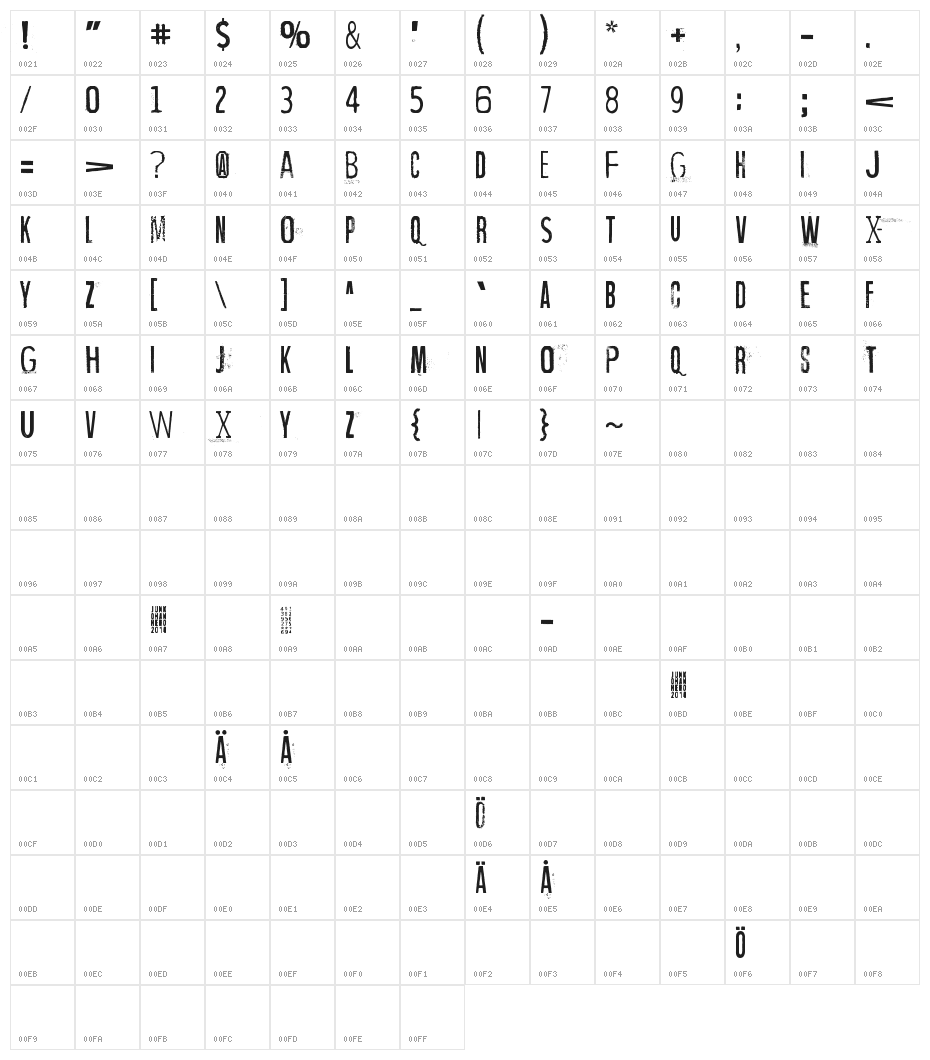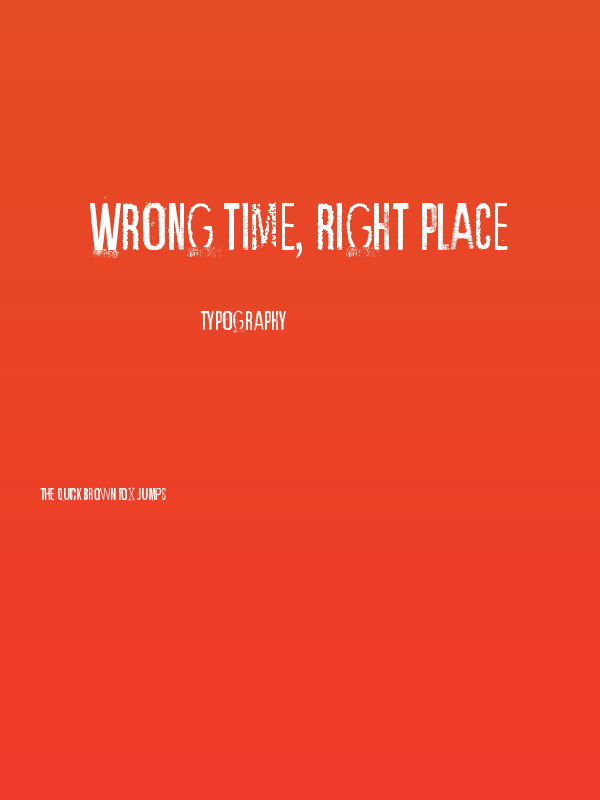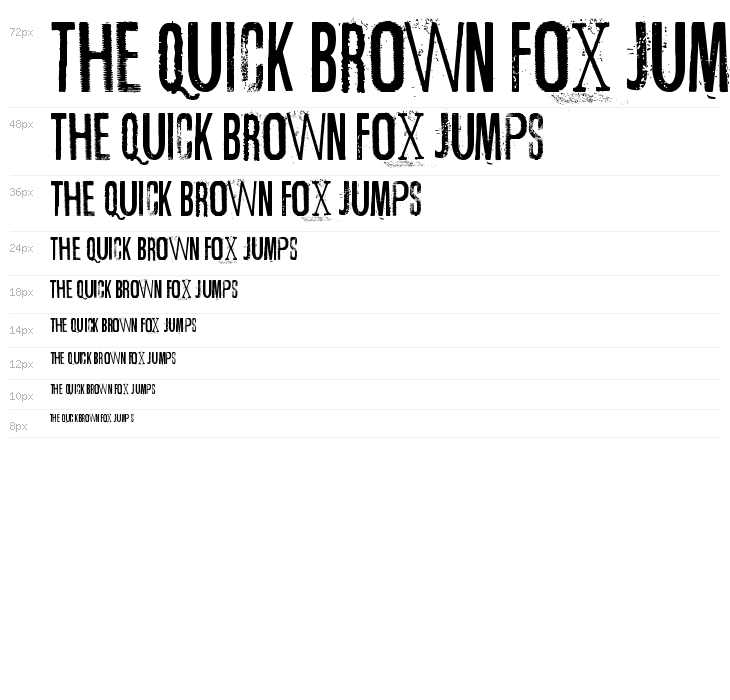
Wrong time, right place Font
Wrong time, right place Description
This font features a distressed, grunge style with a worn and weathered appearance. The characters exhibit a rough texture, giving the impression of being stamped or printed with imperfect ink coverage. The uppercase letters are bold and impactful, while the numbers and special characters maintain the same rugged aesthetic. The font's unique character is enhanced by its irregular edges and varying stroke thickness, which contribute to its dynamic and edgy look. This style is particularly effective for creating a sense of urgency or rawness in design projects.
| Overall Style | Grunge, Urban, Edgy |
| Use Case | Headlines, Posters, Branding |
| Proposed Projects | Ideal for album covers, posters, urban-themed designs, and any project requiring a gritty, raw aesthetic. |